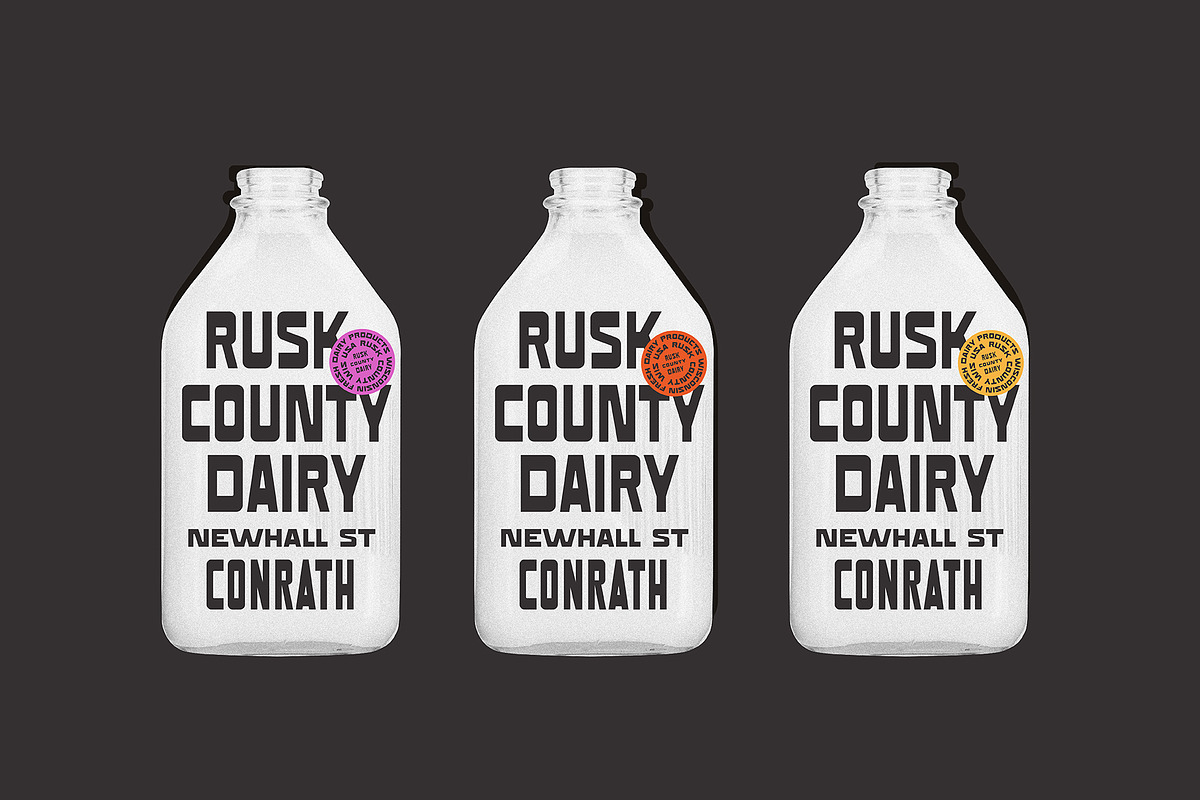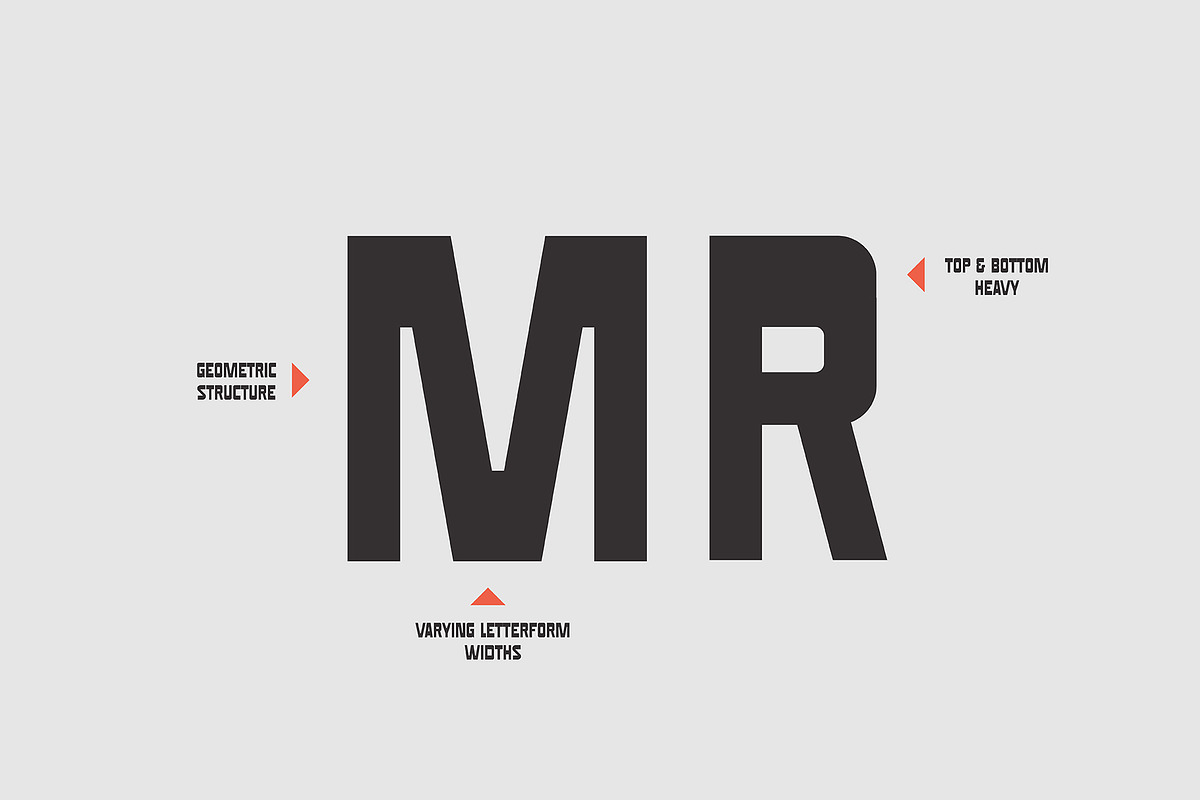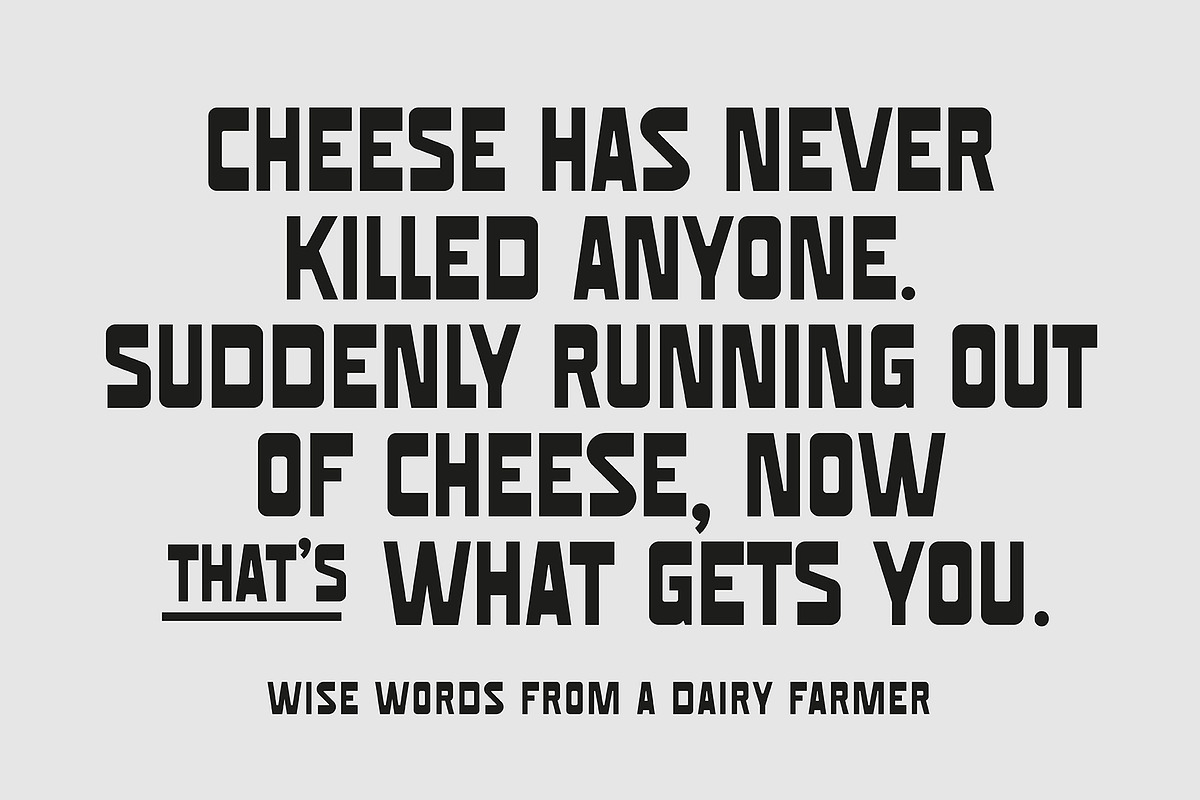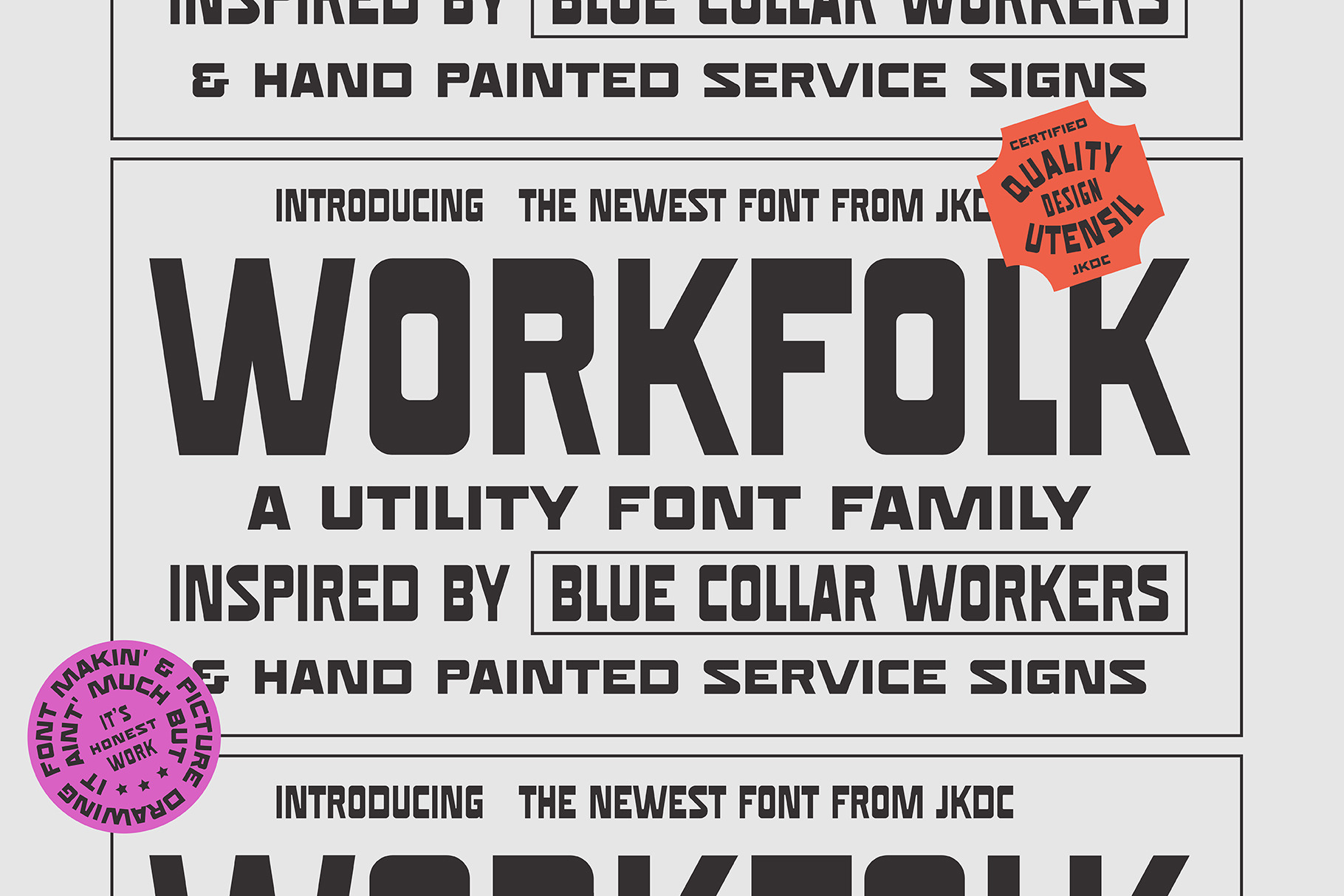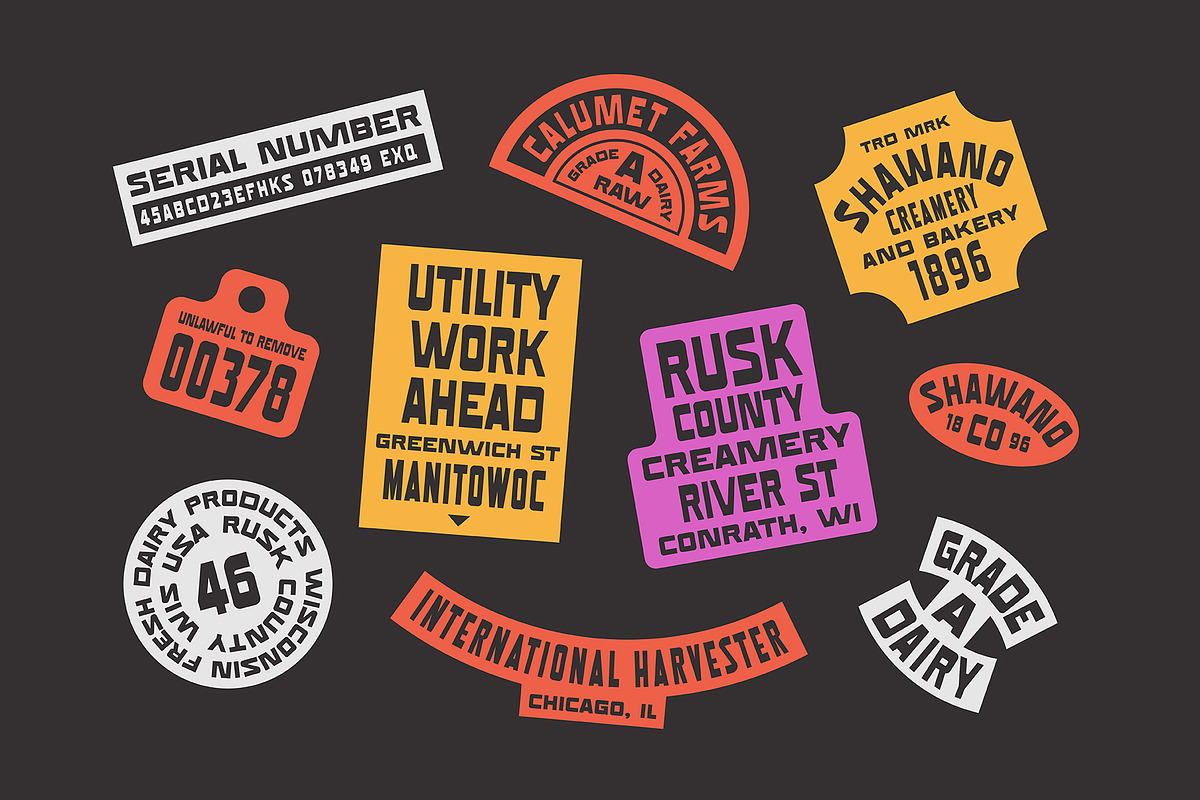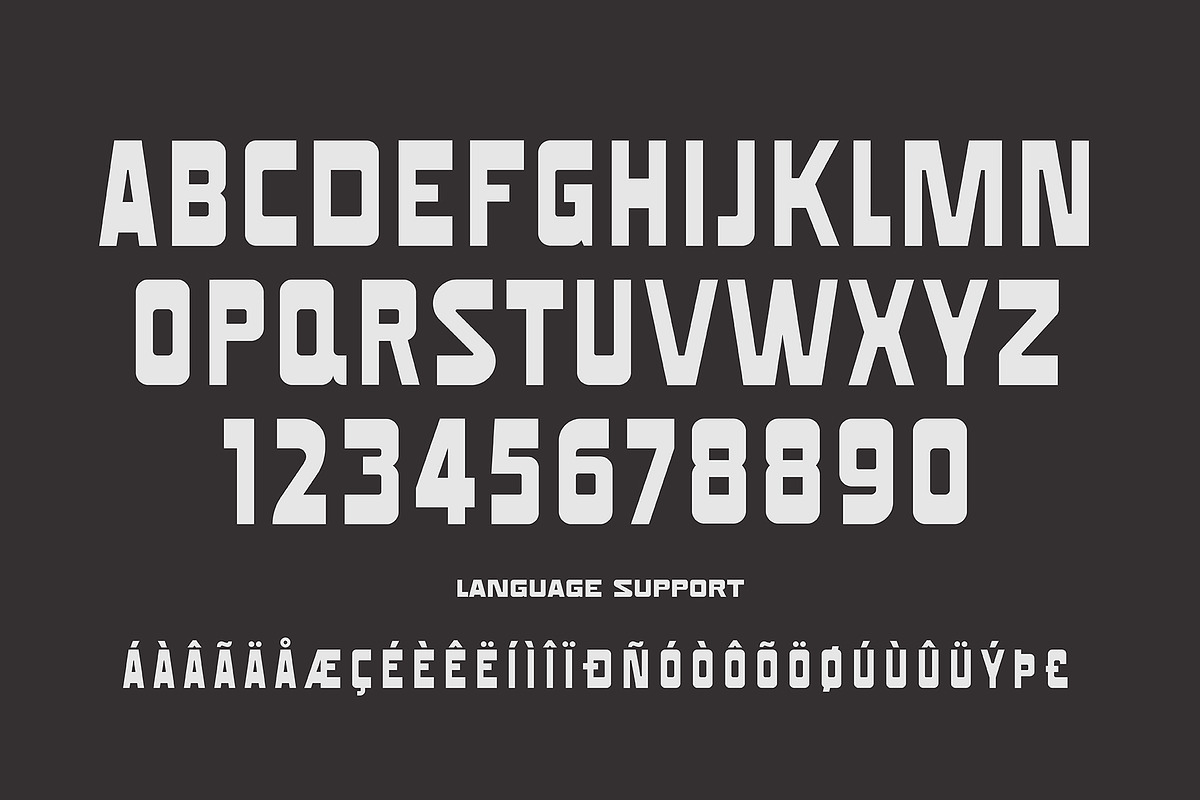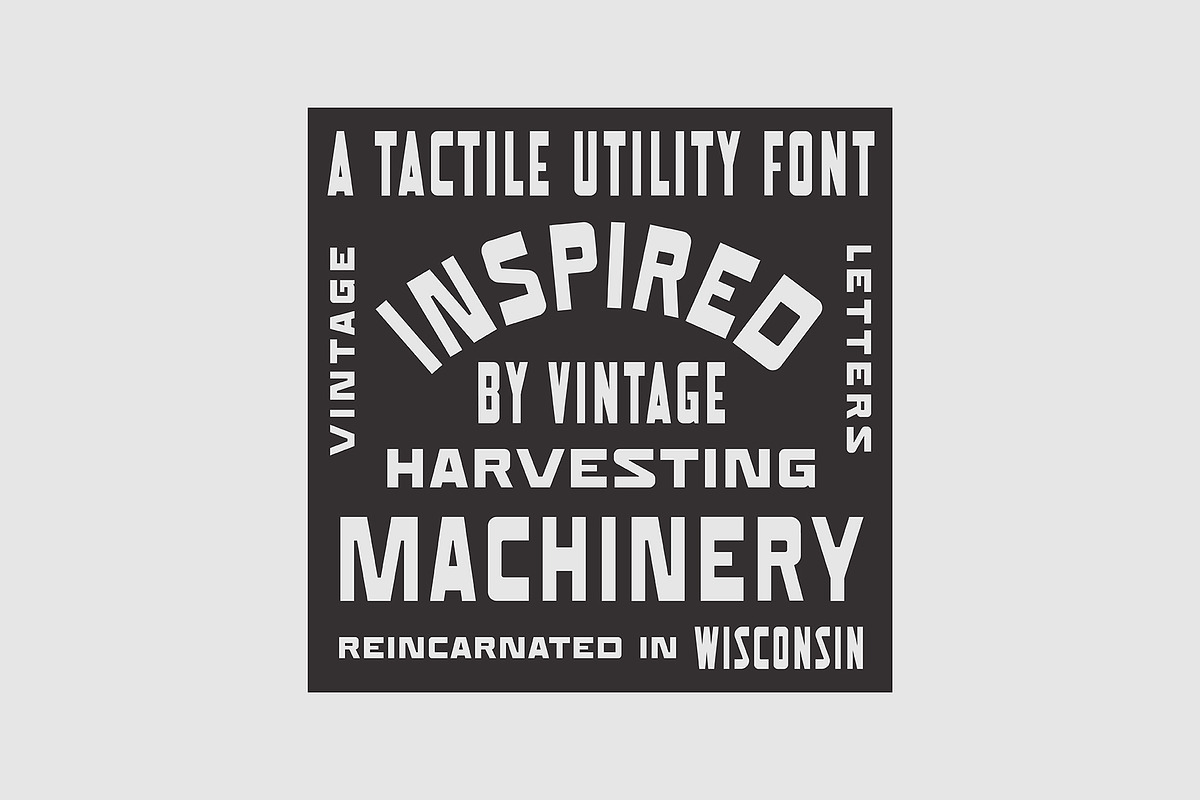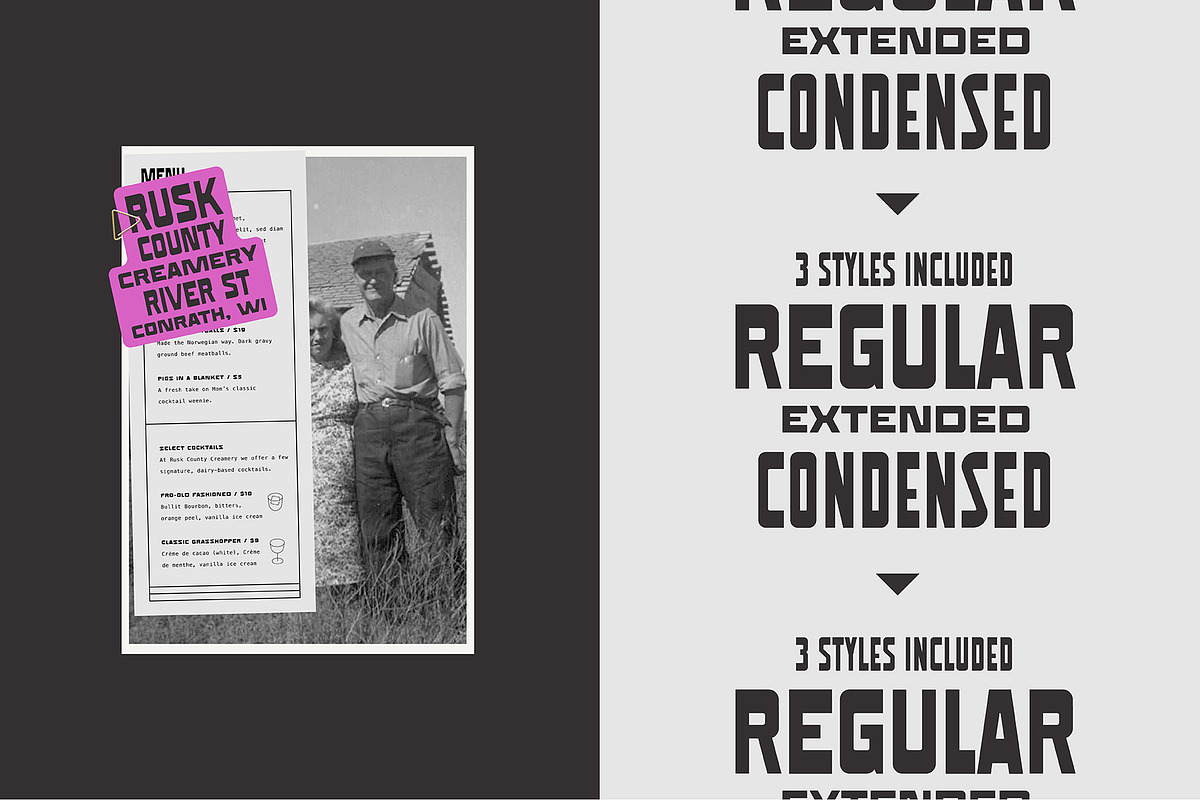
Workfolk - A Vintage Utility Font
ABOUT
Workfolk is a utilitarian display font that pulls inspiration from multiple blue-collar sources. World War 2 military rations, street utility signs, and vintage dairy crates to name a few. The unifying thread through all of this is a gritty, made in America sensibility.
We call Workfolk a utility font because that's what it's designed to be... Nothing fancy, maybe even a little wonky at times... But it does the job. The letterforms look like something our granddad may have hand painted on a plank of wood to advertise his latest corn harvest on the side of the road. Take the "D" for example, it seems to be just a bit too wide... But that's ok, because that's how grandad did it.
Show your appreciation for the past and embrace the look of a bygone era. Create bold typographic statements with three different font styles. Perfect for packaging or brand projects looking to create bold impact with a vintage flare.
There was a time when folks made things with their own two hands. If they didnt have it, they made it. That's what Workfolk is all about. Honoring our resourceful past and embracing it as a tool for the future.
3 different type styles
- Extended
- Condensed
Alternative "S" character located in the glyphs palette.
Diacritics & Umlauts - Multi-language support through glyphs common in Latin script characters (English, French, Spanish, German, Swedish, Norwegian, Danish